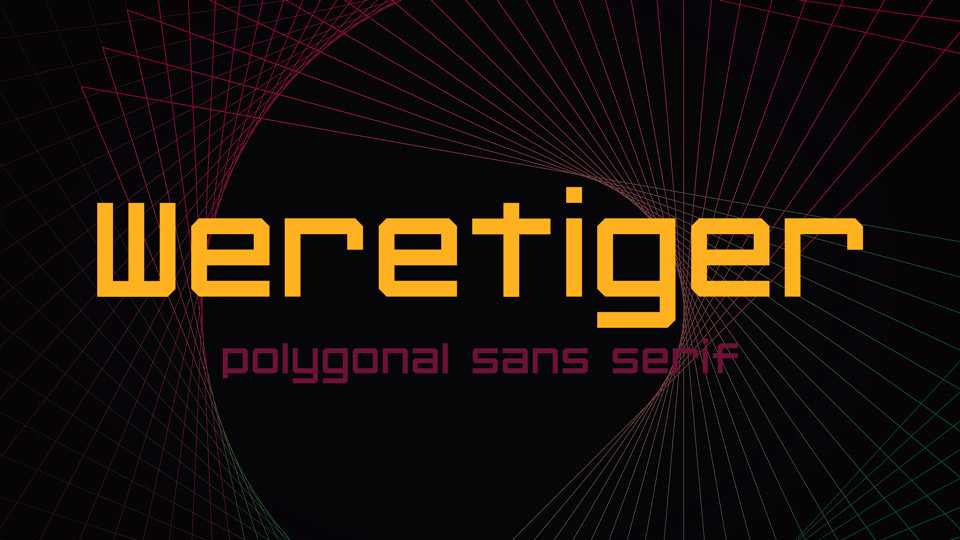
Download Weretiger font, a slightly futuristic chatfont design typeface. Weretiger is good for both logos and body text, fits for posters, headlines, banners, prints and more.